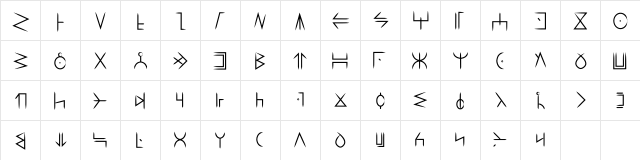
Wakanda Forever Regular
Design Context for Wakanda Forever
Wakanda Forever is a composed and adaptable typeface that performs quietly and consistently across a wide range of design contexts.